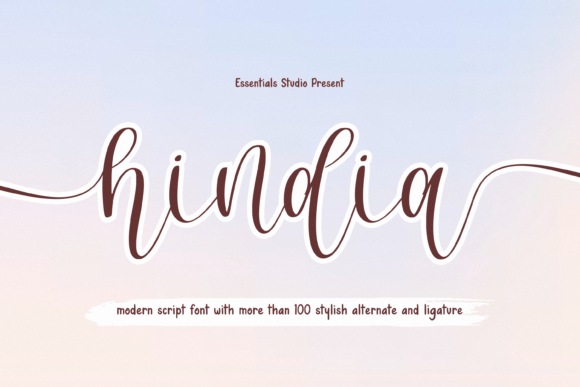
Introducing Hindia Font – the ultimate solution to add a touch of elegance to your creative designs! Whether you're a designer, blogger, or entrepreneur looking for a new font to boost your brand, Hindia Font is the perfect choice for you.
Crafted by the renowned Essentials Studio, Hindia Font is a script font family that boasts exceptional quality and unique features. It is specifically designed for product titles and is known as the "Best Font For Product Title." With its exquisite handwritten style, Hindia Font exudes sophistication and modernity, making it ideal for a wide range of projects.
Hindia Font is versatile and can be used for a variety of purposes, including branding, packaging, social media graphics, wedding invitations, and much more. It's PUA encoded, which means that accessing all of its glyphs and ligatures is a breeze. Plus, it's perfect for those who want to elevate their design game without compromising on quality.
What sets Hindia Font apart from other script fonts is its ability to maintain its classy calligraphic influences while still feeling contemporary and fresh. Its beautiful curves and swashes will instantly grab your audience's attention and keep them engaged. It's perfect for creating a personal touch and adding a touch of elegance to your designs.